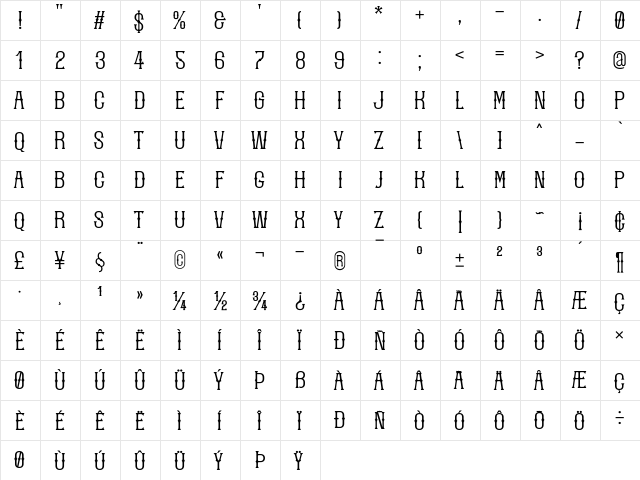
Josy Wine Regular
| Foundry | 7NTypes |
| Designer | Situjuh Nazara |
Design Context for Josy Wine Typeface
Josy Wine takes a measured approach to typography — its balanced proportions and neutral character make it a reliable workhorse for both digital and print work.